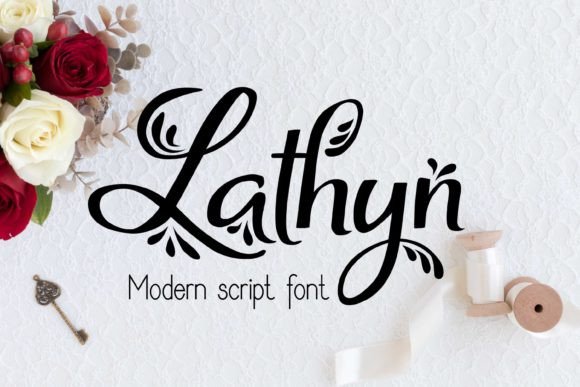
Unleash your creativity with Lathyn, a breathtaking script font that will captivate your audience with its enchanting curves and elegant charm. Crafted by the renowned Digital Typeface Studio, Lathyn embodies the essence of artistry and imagination. Perfect for logos, invitations, branding, social media, and any project that demands a touch of sophistication, Lathyn's timeless beauty will leave a lasting impression. Immerse yourself in the world of Lathyn and discover the endless possibilities it holds.
With Lathyn, your designs will radiate a sense of grace and allure. Its flowing strokes and intricate details evoke a sense of wonder and enchantment, making it the perfect choice for projects that aim to inspire and connect. Whether you're creating a wedding invitation that whispers romance or a logo that exudes elegance, Lathyn will effortlessly elevate your vision.
The versatility of Lathyn knows no bounds. Its ability to seamlessly adapt to various styles and themes makes it an essential tool in the creative arsenal. From whimsical illustrations to modern branding, Lathyn's adaptability ensures that it complements any project with effortless grace. Unleash your creativity and explore the limitless potential that Lathyn holds.